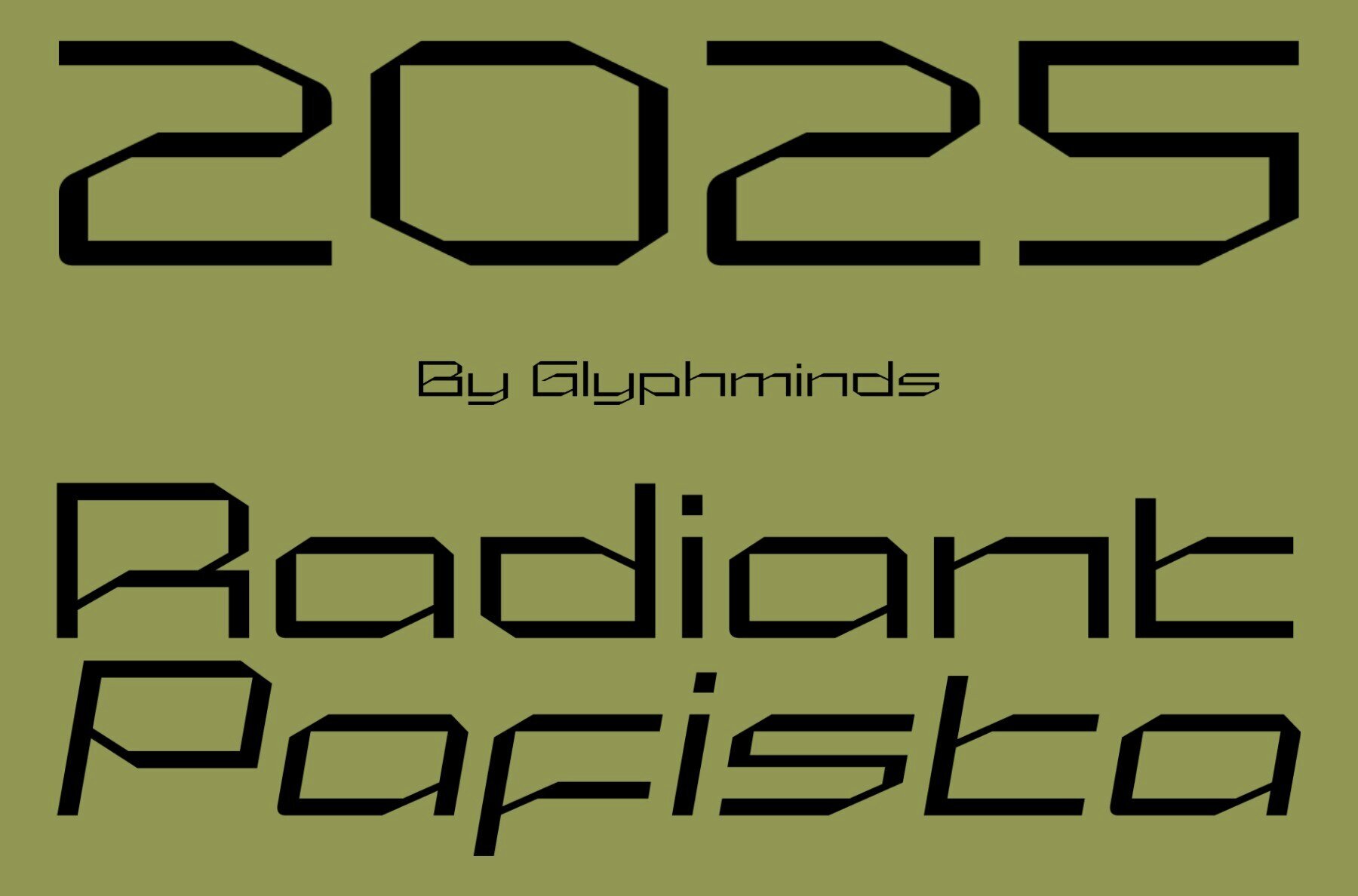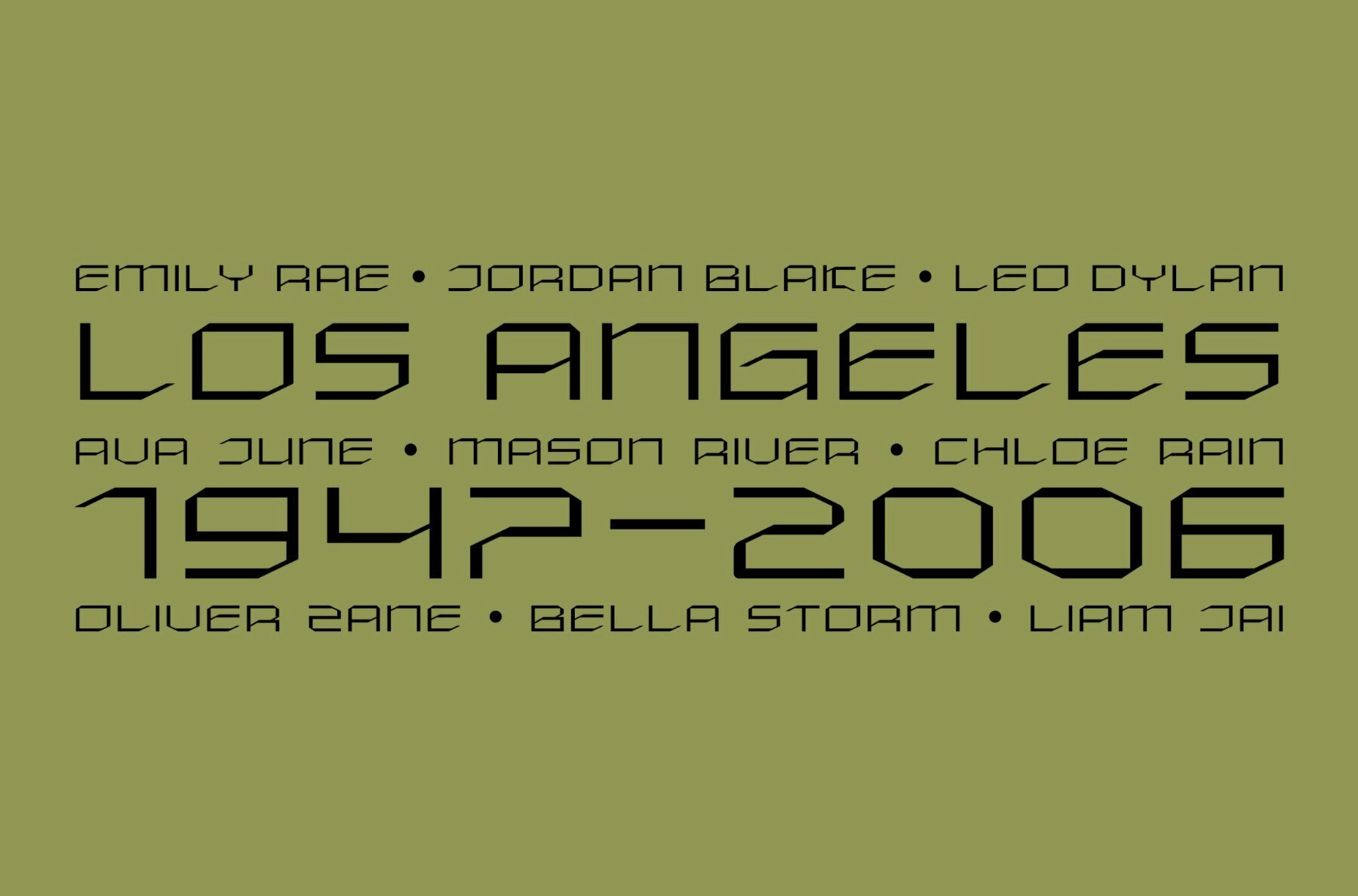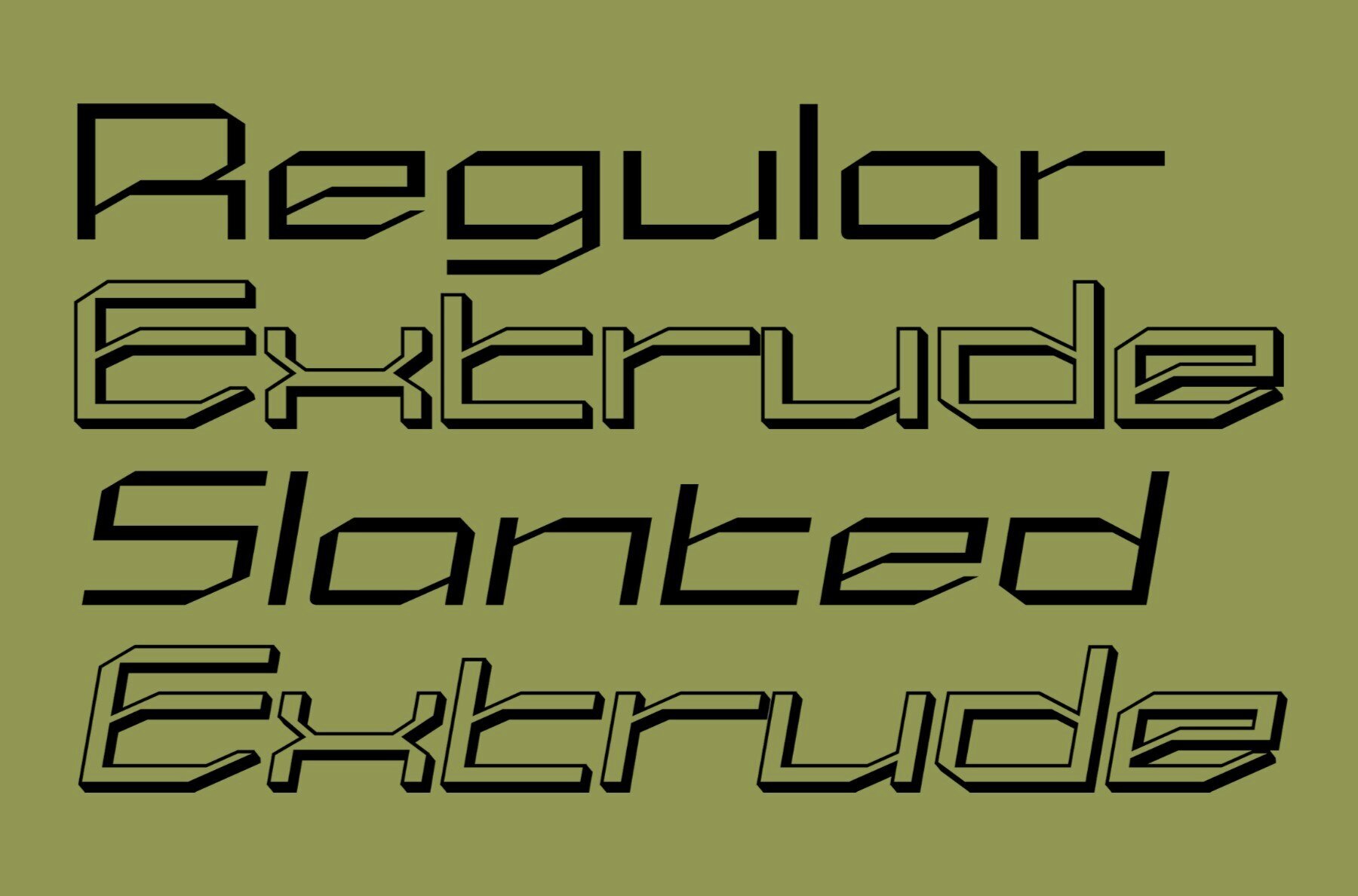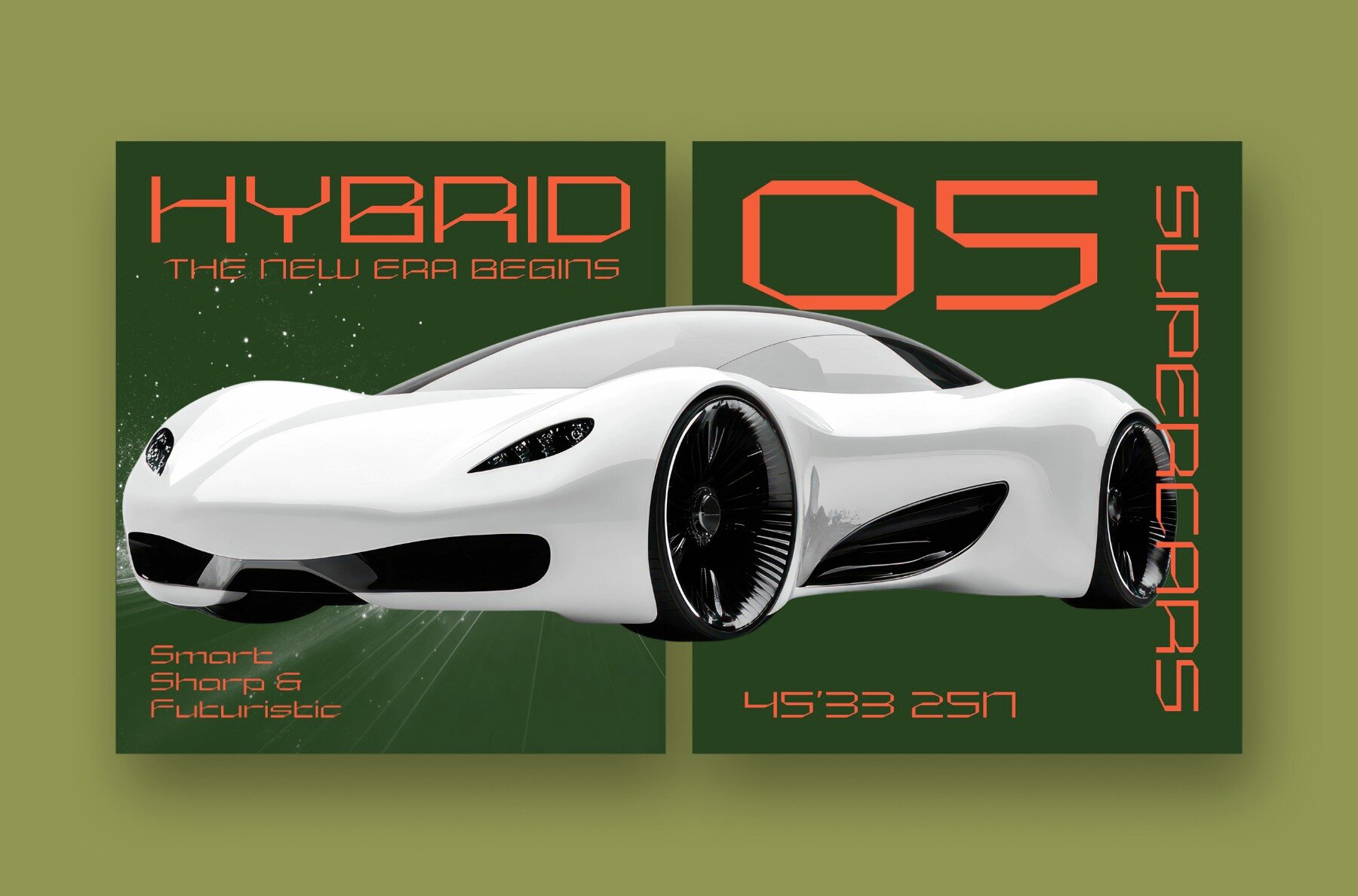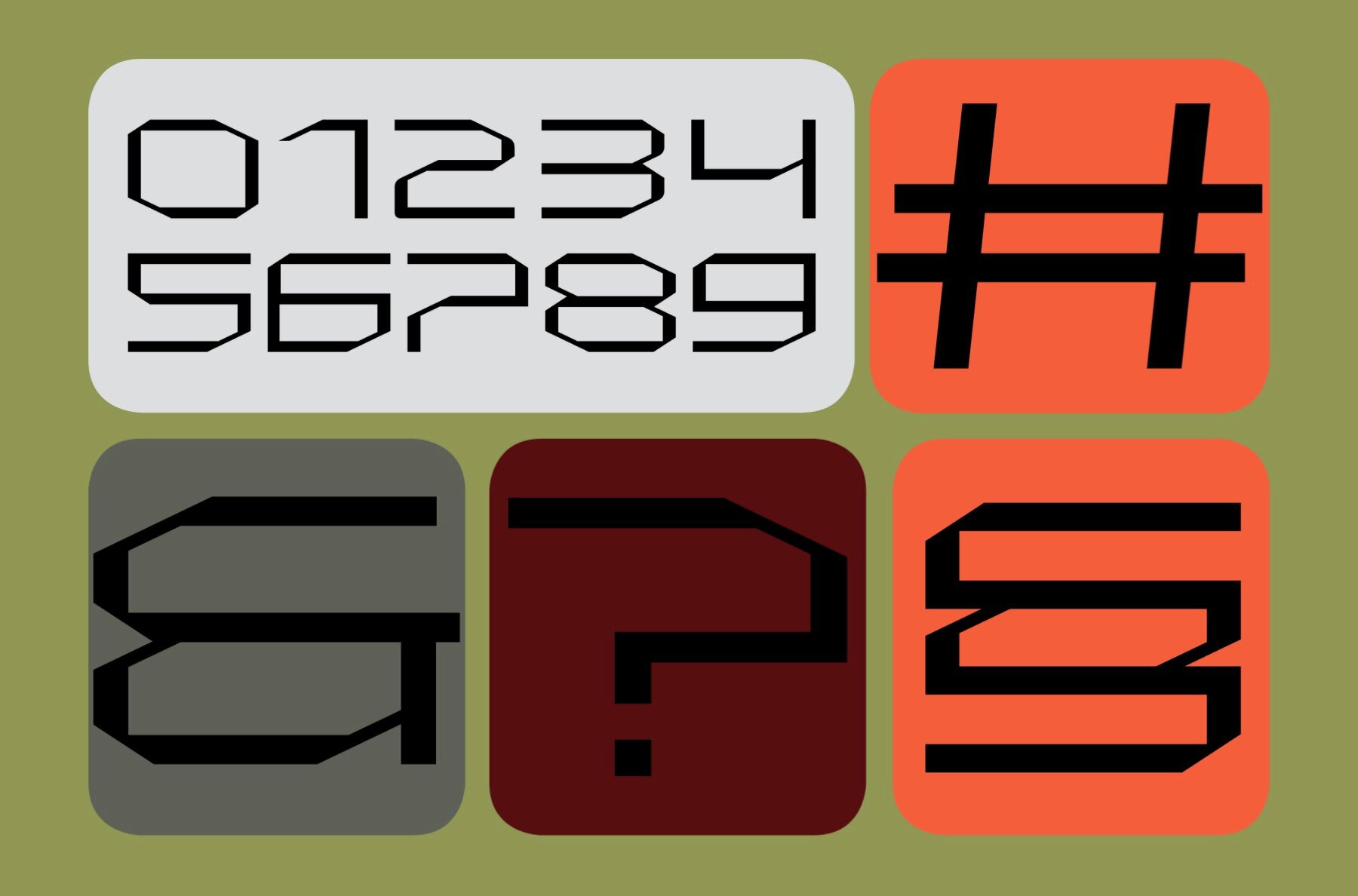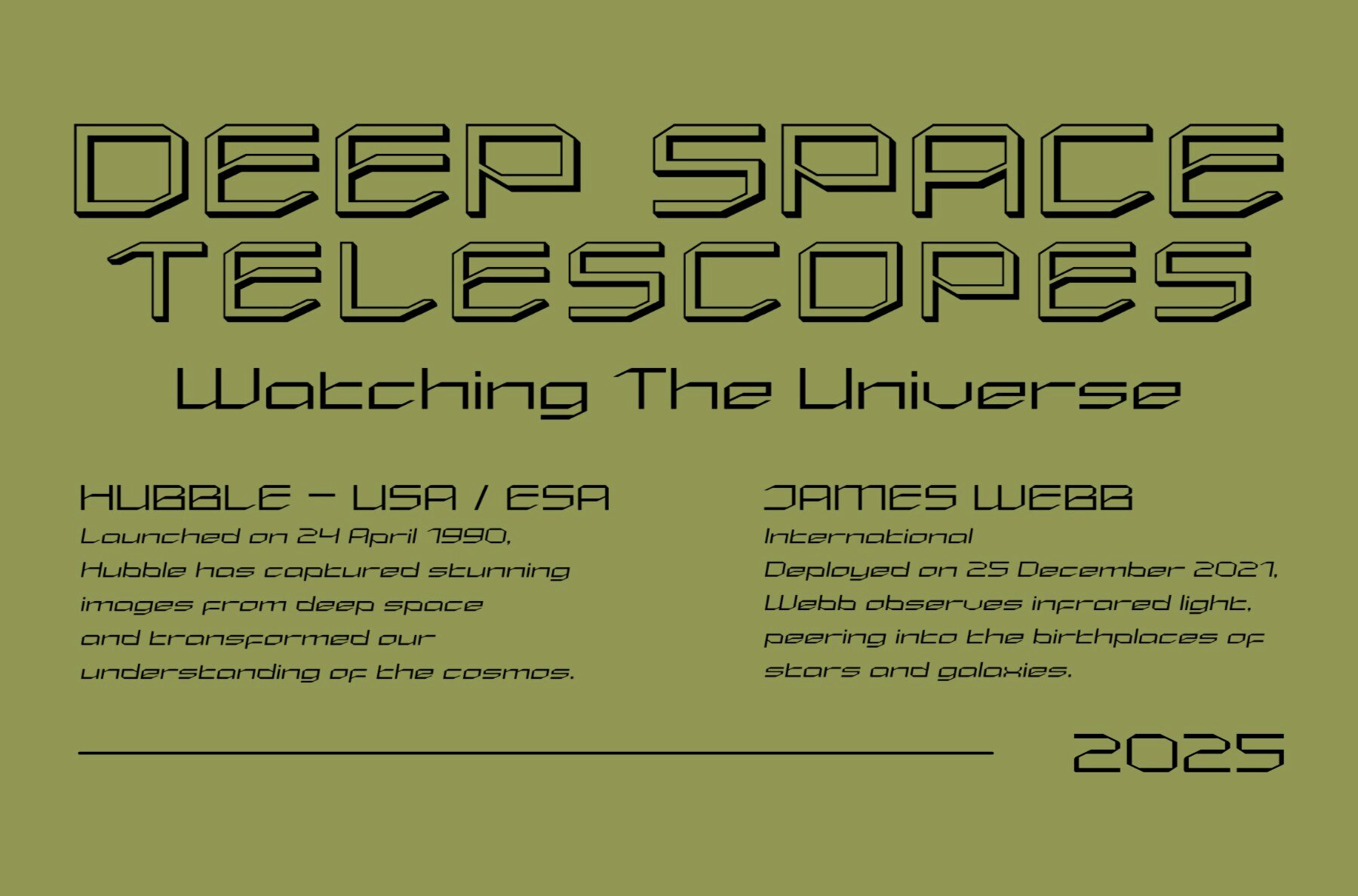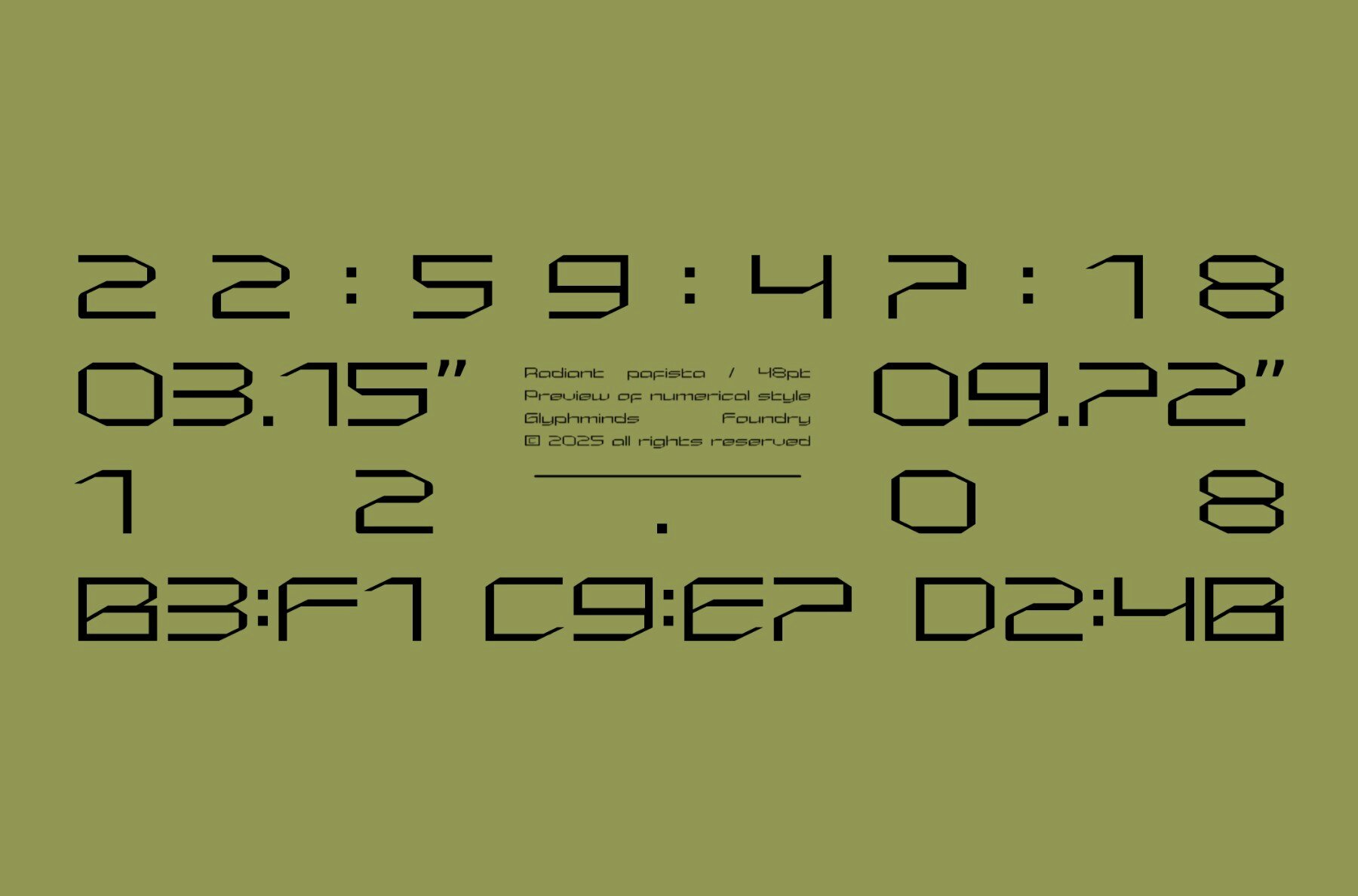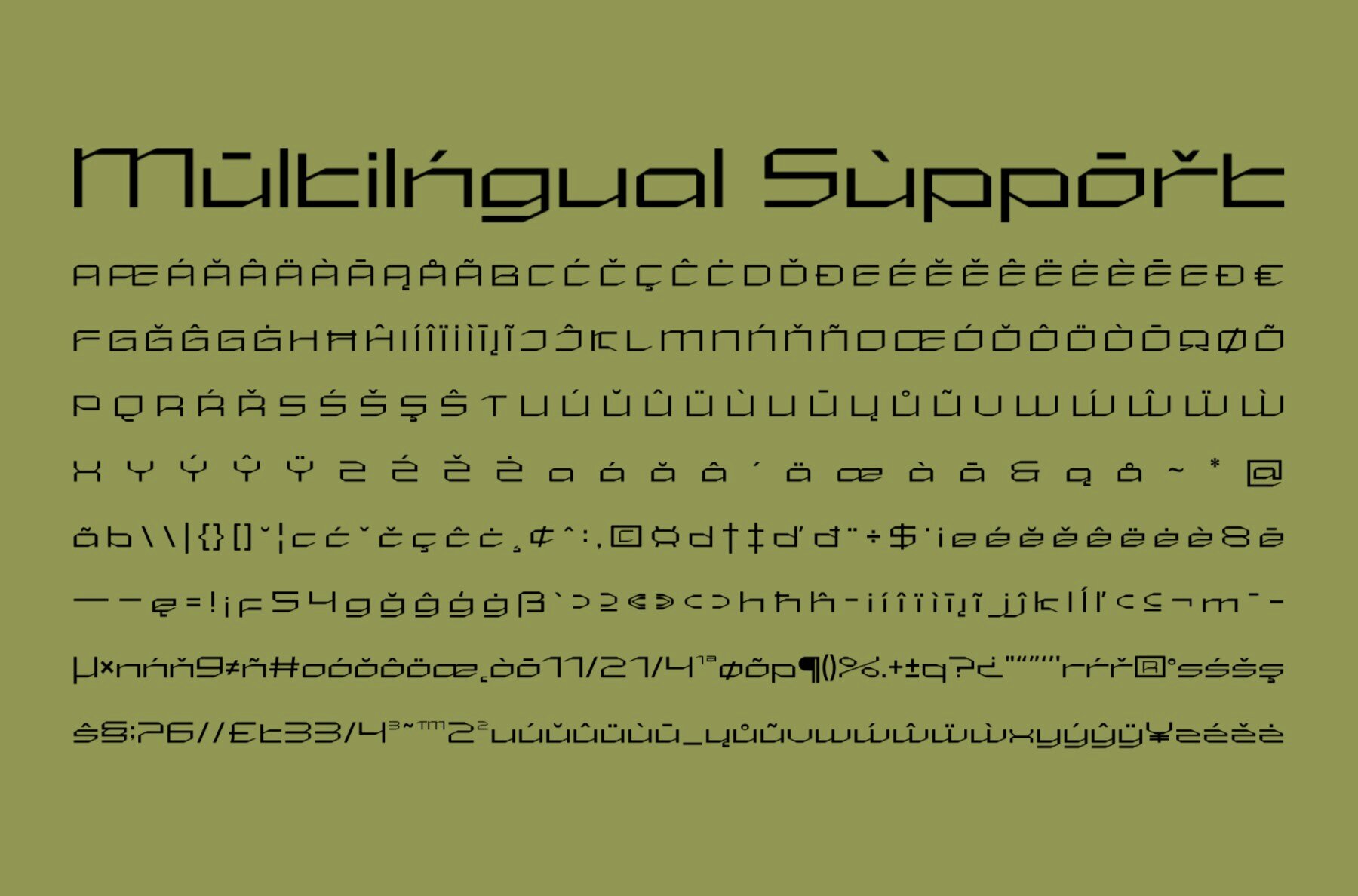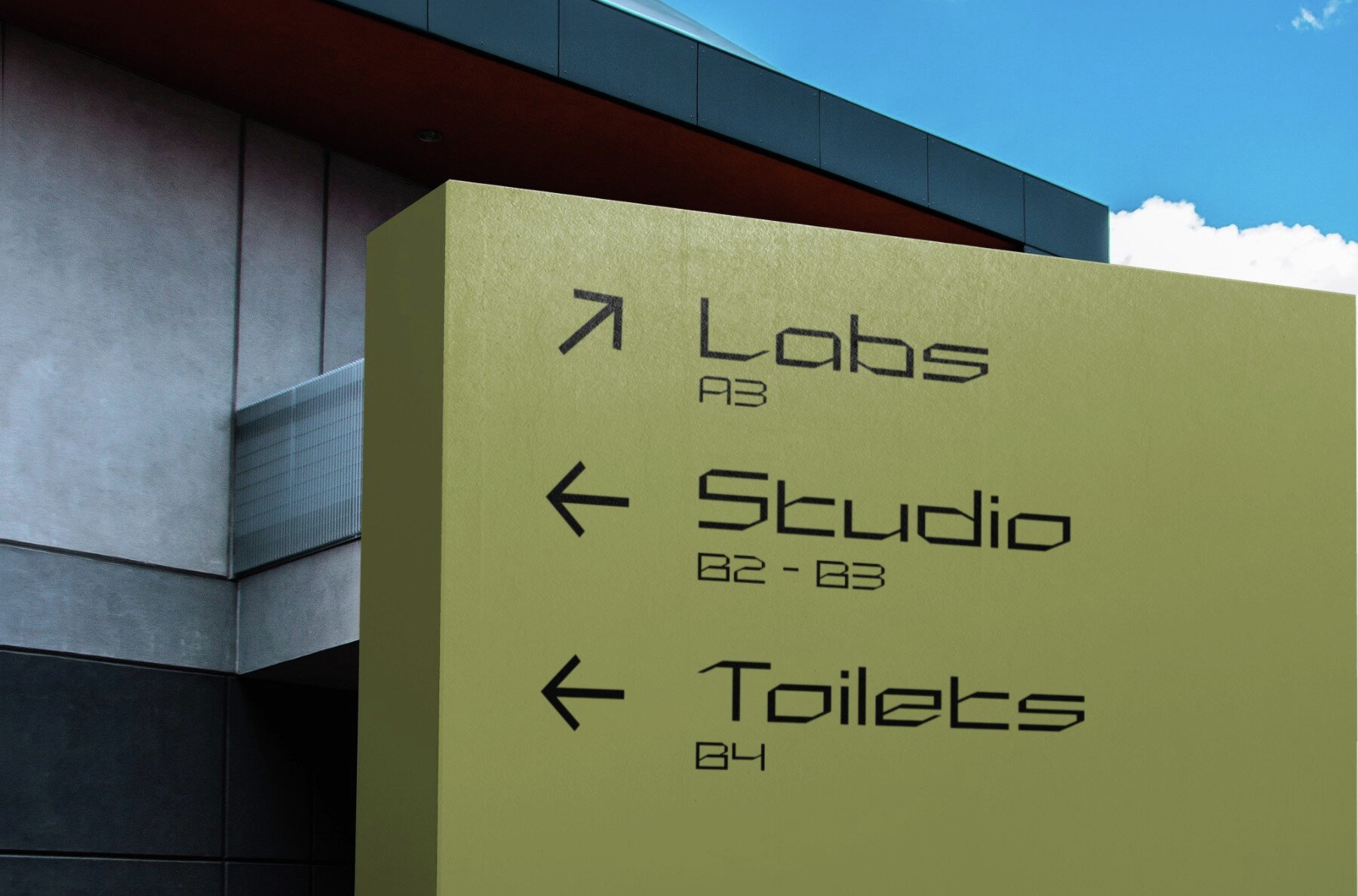
Radiant Pafista Font
Embrace a bold aesthetic with Radiant Pafista, a display font that commands attention and elevates modern design. Its sharp angles and geometric structure incorporate unique stencil-like details, making it a distinctive choice for creative professionals seeking to make a statement. This typeface embodies the spirit of modern technology, ideal for sci-fi themes and digital environments. The clean, wide letterforms deliver an assertive appearance, while the italic version introduces a dynamic sense of motion. Radiant Pafista is perfect for:Radiant Pafista: A Bold Display Font for Modern Designs
Radiant Pafista infuses creativity with bold energy, offering new dimensions to design projects.